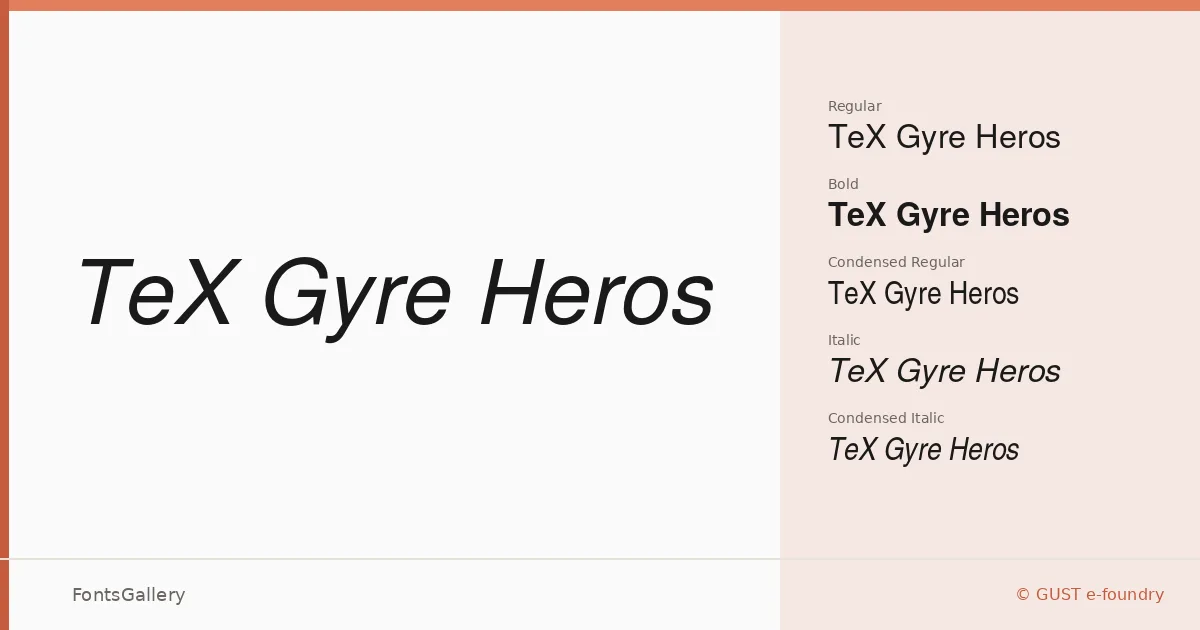
About TeX Gyre Heros Font
There is a quiet confidence to this sans-serif that reveals itself in the even stroke weight, the clean terminals, and the unhurried spacing that holds up whether you're setting a single word large or running body copy small. Released by GUST e-foundry, with copyright credited to B. Jackowski and J.M. Nowacki on behalf of TeX users groups, it belongs to the TeX Gyre project — a serious effort to produce high-quality, broadly usable typefaces for the typesetting community. The result is a neutral grotesque with genuine rigour behind it.
The family covers eight cuts across two widths: Regular and Bold, each with an Italic, plus a Condensed subfamily offering the same four combinations — Regular Condensed Regular, Regular Condensed Italic, Bold Condensed Bold, and Bold Condensed Bold Italic, all delivered as OTF files. The upright weights read as classic and professional, with the kind of restrained geometry that sits comfortably in modern layouts without calling attention to itself. The condensed cuts add real utility, tightening the rhythm for tight columns, large-format signage, or headline setting where horizontal space is at a premium.
It works with equal ease across branding systems, magazine layouts, presentation decks, website headers, and environmental signage — anywhere a minimal, modern voice is wanted without sacrificing legibility. Language coverage extends to Latin, partial Latin Extended, Vietnamese, and Greek, which broadens its reach across multilingual publishing work. For contrast-based pairings, the family has been matched with Canela, Armelie, 321 Impact, AQUA, and Kactigona — combinations that tend to pair its geometric restraint against something warmer or more expressive.